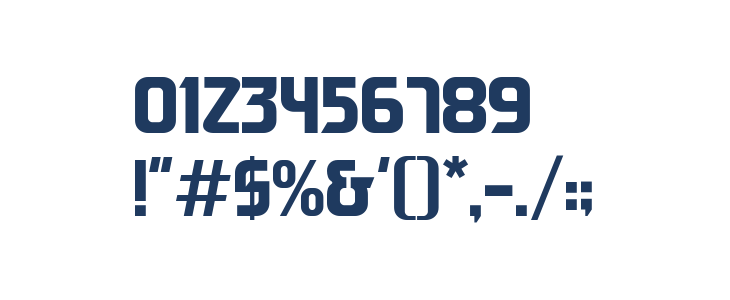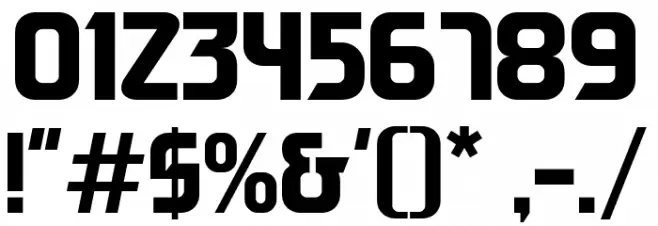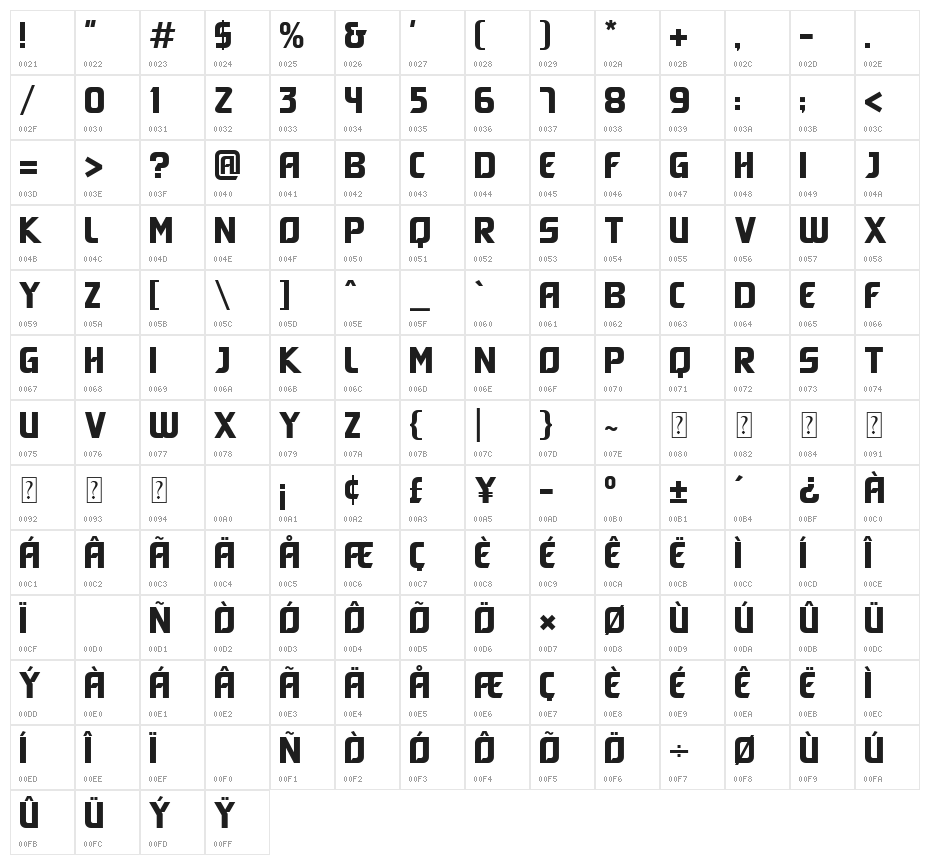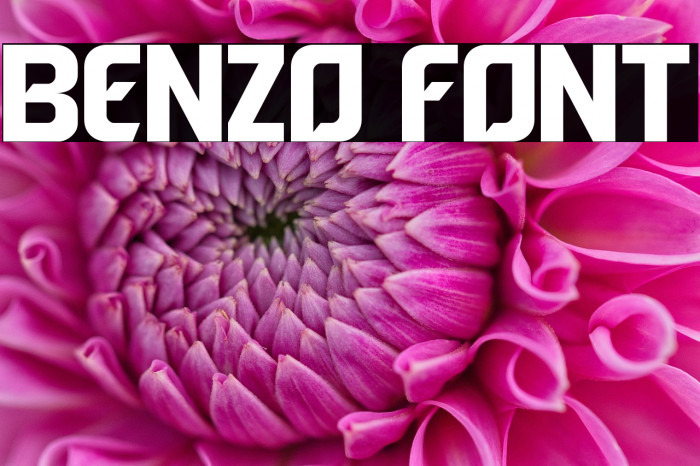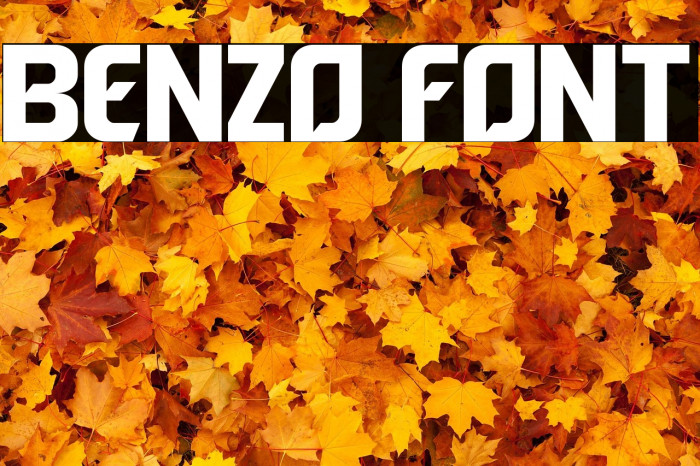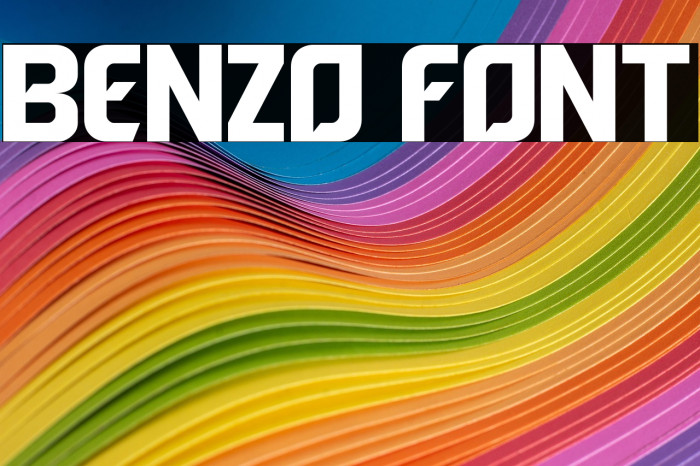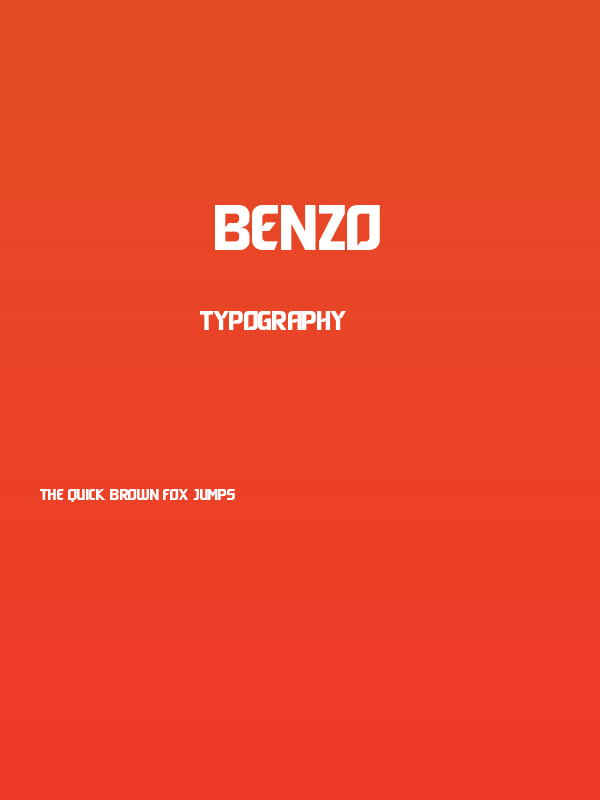
Benzo Font
Benzo Description
This font exhibits a bold and geometric style, characterized by its strong, angular lines and modern aesthetic. The uppercase and lowercase letters maintain a consistent width, creating a uniform appearance. The numerals and special characters are designed with the same boldness, ensuring legibility and impact. The overall design is clean and contemporary, making it suitable for a variety of modern applications. Its distinct and assertive look makes it ideal for projects that require a strong visual presence.